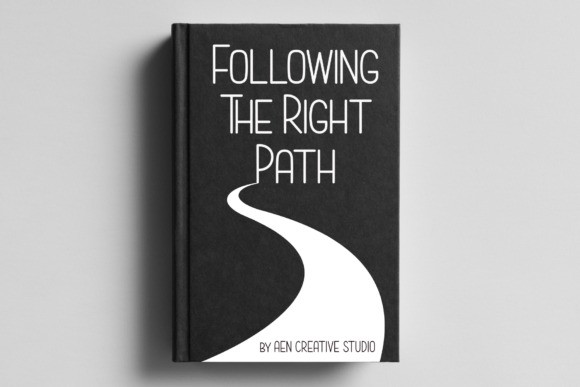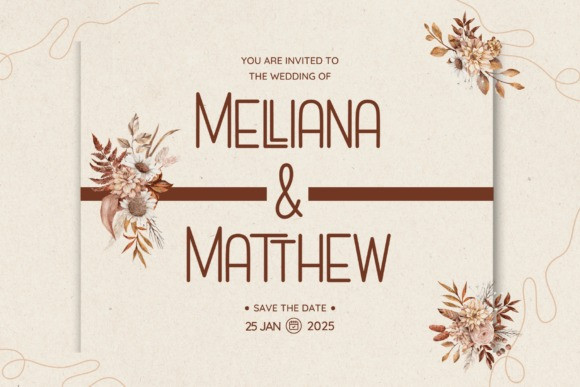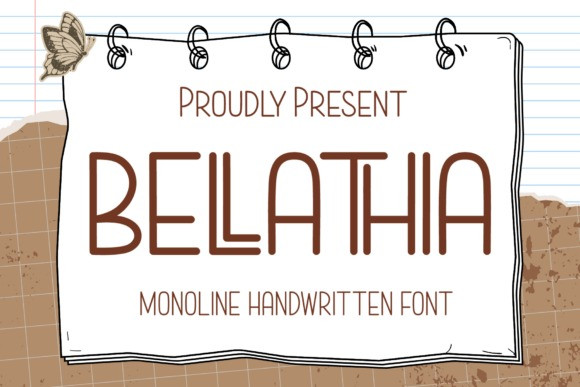
Bellathia Font
Bellathia Font – a monoline handwritten font that combines simplicity with style. Perfect for logos, branding, and crafting, Bellathia brings a touch of warmth and personality to every design. Whether you’re planning a wedding invitation, designing a handmade card, or crafting a business logo, Bellathia fits seamlessly into any project. Its clean and minimalistic aesthetic ensures your message shines through beautifully. Make your designs stand out with Bellathia!